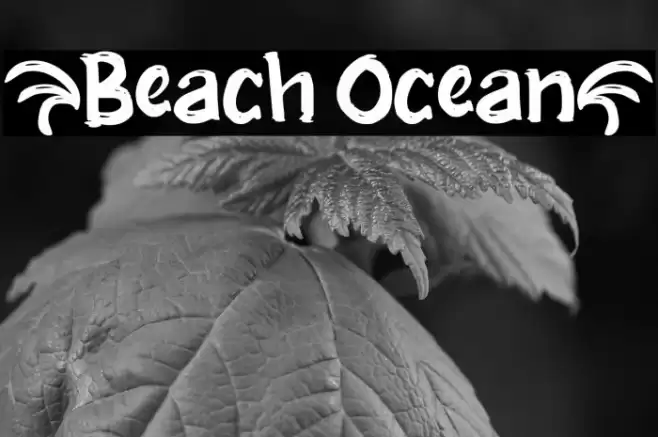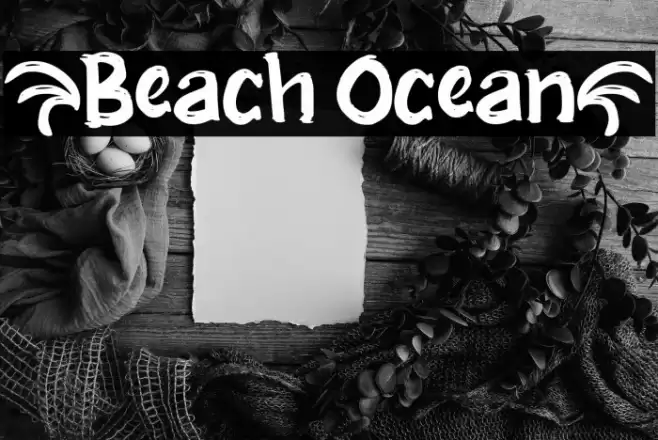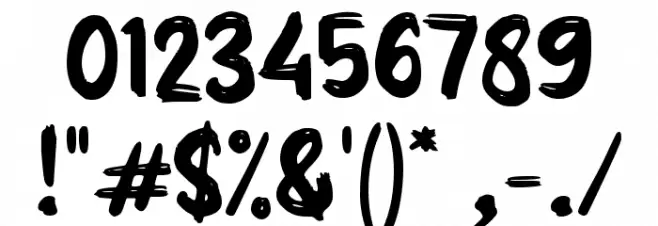
{Beach Ocean} Font
{Beach Ocean} Description
This font exudes a playful and energetic vibe, reminiscent of handwritten brush strokes. The characters are bold and slightly irregular, giving them a dynamic and lively appearance. The strokes vary in thickness, adding to the casual and informal feel. This style is perfect for projects that require a touch of creativity and fun, such as beach-themed designs or children's book covers. The font maintains good legibility despite its artistic flair, making it suitable for both headlines and short text blocks.
A playful, brush-style font with bold, irregular strokes from Uncategorized fonts.
- Proposed Projects: Ideal for beach-themed designs, children's books, posters, and creative branding.